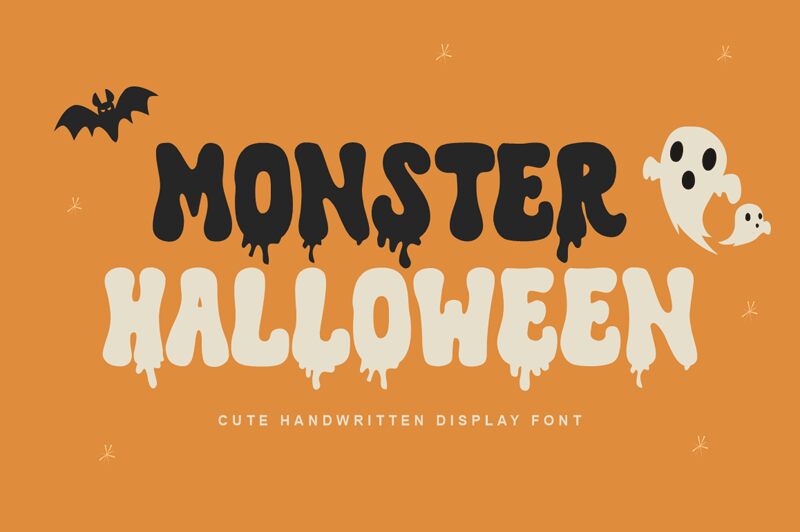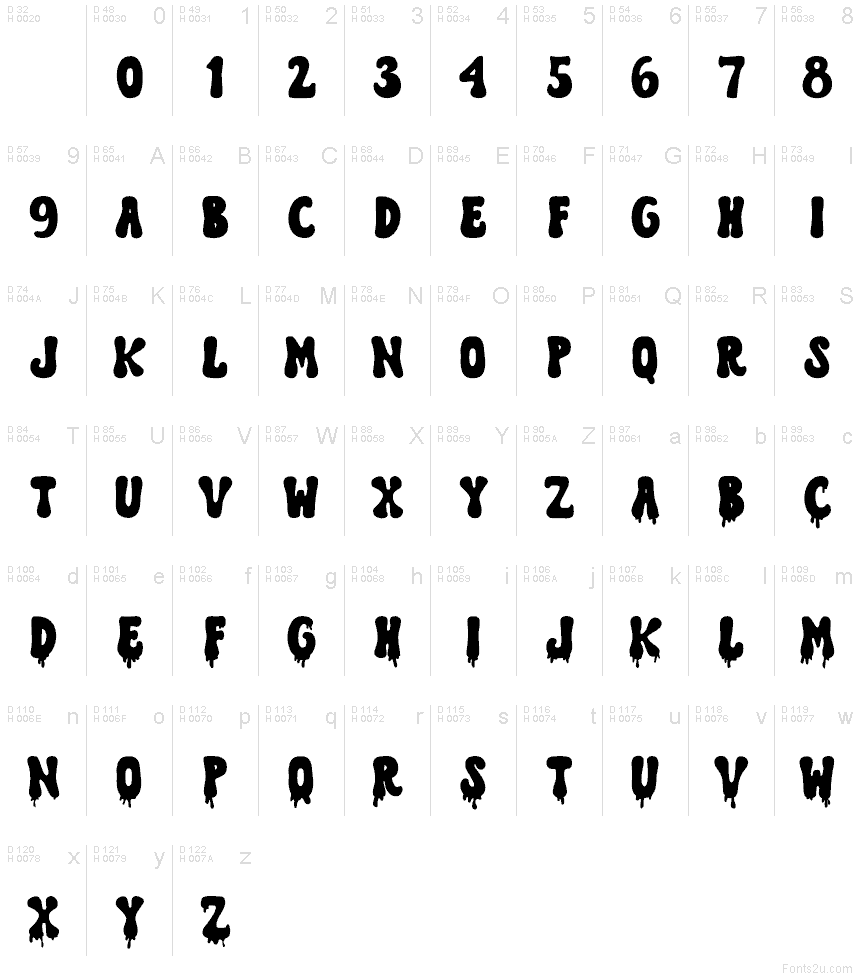
Monster Halloween
Monster Halloween font by ReyreyBlue is a free Halloween display font that oozes personality—literally. The letters look tar-black and gooey, with thick, rounded bodies and dangling drips that feel wet and freshly splattered. Despite the gruesome texture, the shapes read quickly at a glance, giving you loud impact without losing legibility.
Using Monster Halloween, headlines snap to attention on party flyers, haunted house posters, trick-or-treat bags, social posts, and spooky banners. This free font shines on big, high-contrast artwork and works beautifully with a clean geometric sans for body copy. Give it a touch of extra tracking and larger line spacing to let those inky drips breathe.